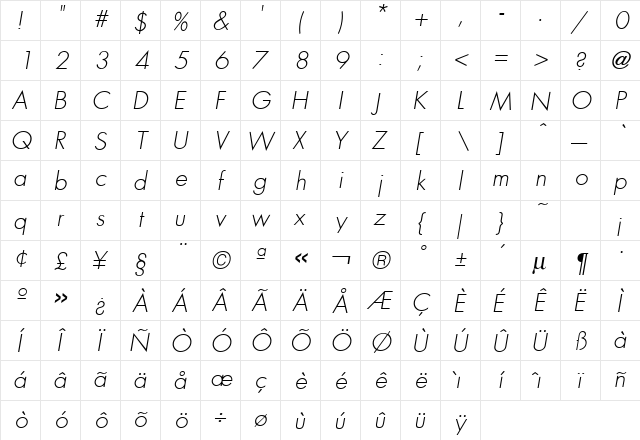
Futura ICG Light Oblique Font Preview
Design Context for Futura ICG Light Typeface
Futura ICG Light channels digital-age aesthetics through its sharp, structured letterforms — ideal for brands that want to signal innovation. The dynamic lean of this cut emphasises speed and emphasis in any layout. The delicate stroke weight brings airiness and refinement to layouts.
Pro Tip: Use Futura ICG Light in combination with a neutral sans for body text. Let it define the brand voice in headlines while keeping reading comfortable elsewhere.